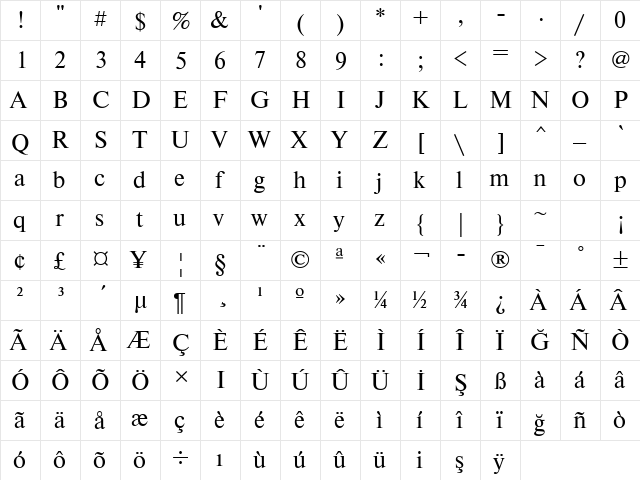
NewtonTTT Regular Font Preview
NewtonTTT Regular
NewtonTTT Regular Font Details
Design Context for NewtonTTT Typeface
NewtonTTT is a composed and adaptable typeface that performs quietly and consistently across a wide range of design contexts.